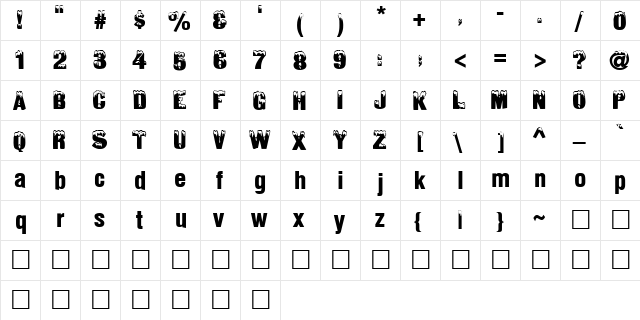
Minnesota Normal
Design Context for Minnesota Typeface
Minnesota is a composed and adaptable typeface that performs quietly and consistently across a wide range of design contexts.